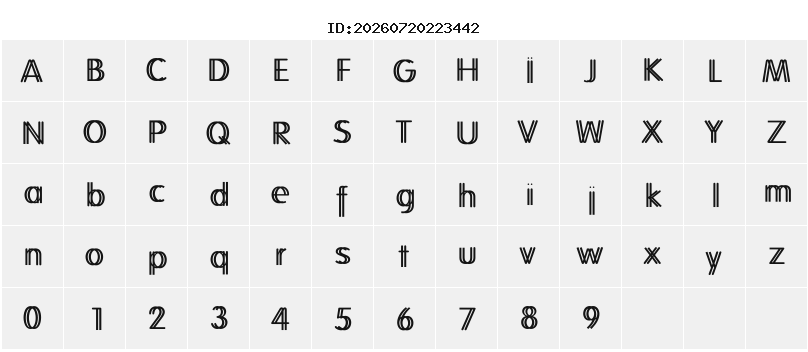
• Font Name: FolksTwins
• Full Font Name: FolksTwins
About FolksTwins.ttf
FolksTwins.ttf is a modern, elegant sans-serif font designed for ultimate readability and visual harmony. Perfect for branding, headlines, web design, and print materials.